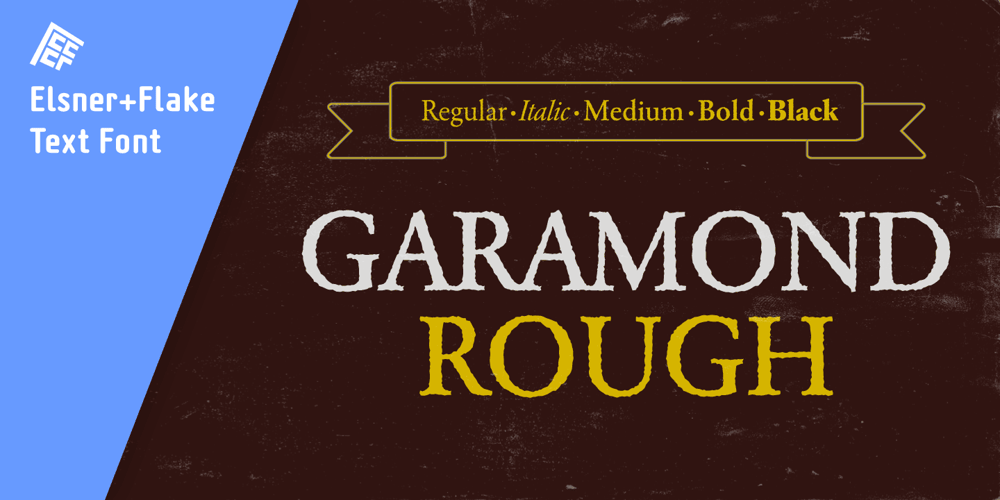
Garamond Rough Pro Font Family was designed by Thomas Sokolowski and published by Elsner+Flake. Garamond Rough Pro contains 5 styles and family package options. With its animated contours, and set in an appropriate size, the Garamond Rough typeface attempts to simulate printed hot metal typesetting. Its roughened edges make it appear softer and less crisp, and, thus, takes the harshness out of the type image. The size of the offered type complement as well as the number of its affiliated symbols makes it ideal for differentiated text setting. Furthermore, its display types make surprising visual accents possible. The origins of the design of Garamond Rough go back to the middle of the 16th century. They are ascribed to Claude Garamond who was one of the first typographers who designed typefaces specifically for the setting of books. During the course of the past centuries and decades, many different variations and new design interpretations of the Garamond typeface were developed to accommodate the most diverse typesetting and printing practices in many different countries. As such, today’s designers can take advantage of a comprehensive digital repertoire for text and display applications. Translation Inga Wennik